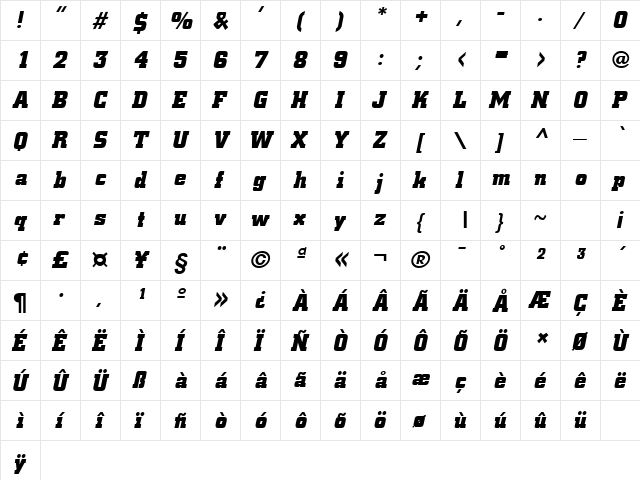
City Bold Italic
Design Context for City Typeface
City is a composed and adaptable typeface that performs quietly and consistently across a wide range of design contexts. The slanted form adds forward momentum and visual energy. The heavy weight commands attention and anchors typographic hierarchies.
Pro Tip: Use City for emphasis, pull quotes, and subheadings where its slanted energy can add rhythm to the layout.